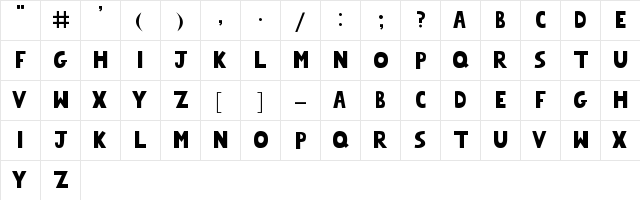
Chunk Regular
| Designer | Jordan Rapps |
Design Context for Chunk Typeface
Chunk offers clean, dependable letterforms without strong stylistic allegiance, making it a practical choice for designers who need flexibility.